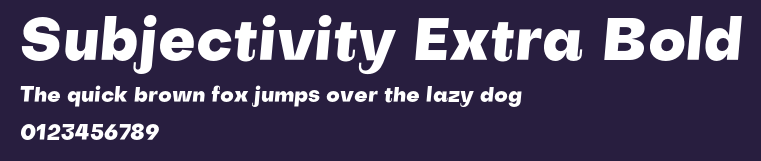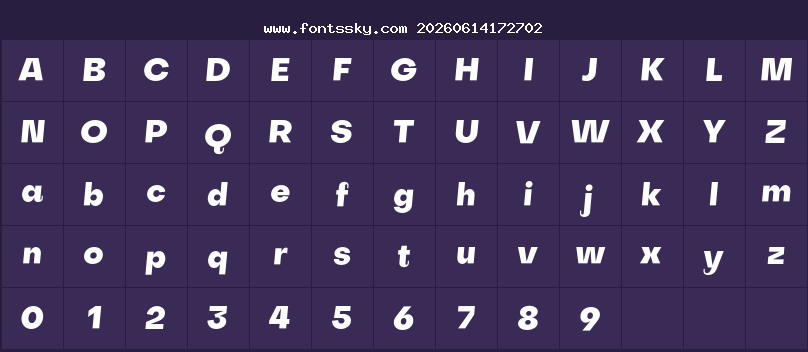
Subjectivity Extra Bold Preview
• Font Name: Subjectivity Extra Bold
• Designer: Alexander Slobzheninov
About Subjectivity Extra Bold.otf
Subjectivity Extra Bold.otf is a modern, elegant sans-serif font designed for ultimate readability and visual harmony. Perfect for branding, headlines, web design, and print materials.